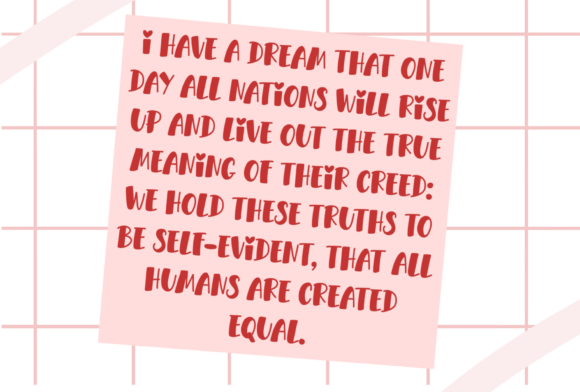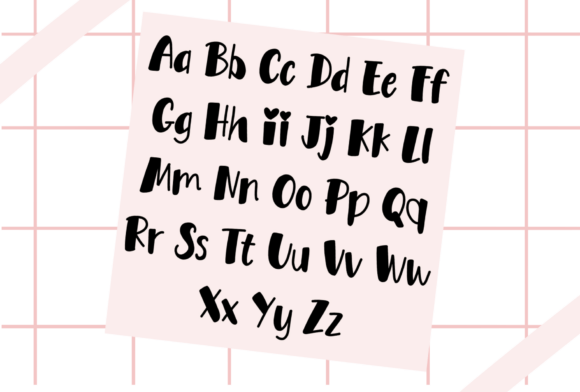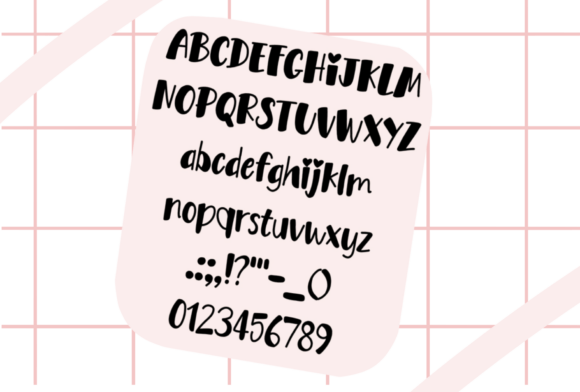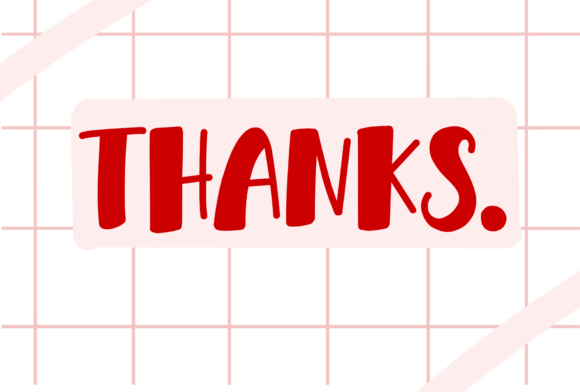
Introduction to Nations Font
Nations ,is a neat handwritten font, perfect for digital note-taking.
This versatile font works great for various projects, including Procreate, blog posts, logos, branding, digital planners, invitations, greeting cards, photo albums, decorations, and more It also supports multiple languages and adds a cute, personal touch to any design, especially on iPads and GoodNotes.